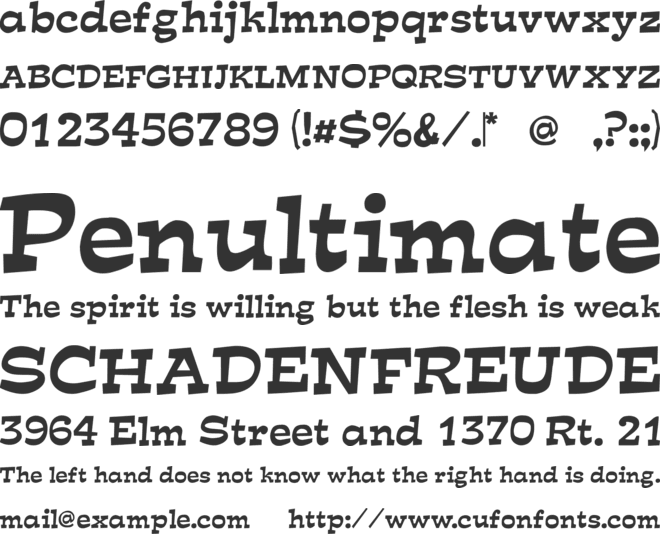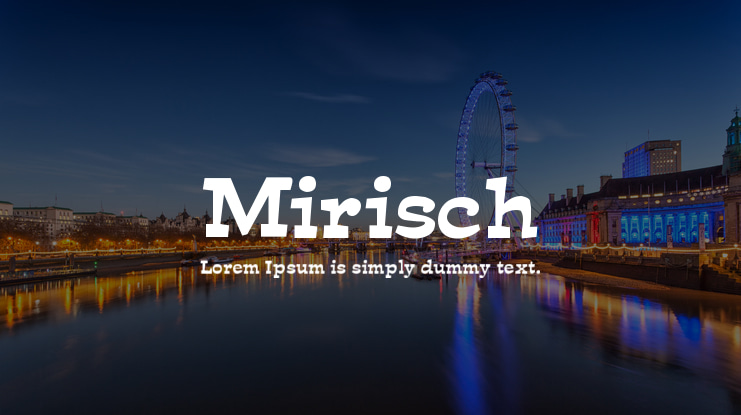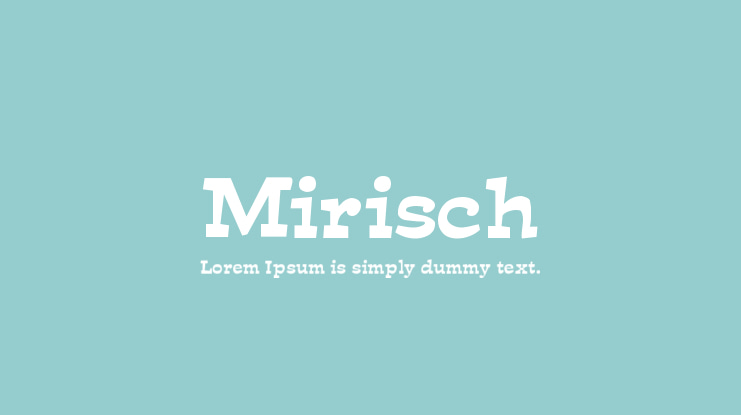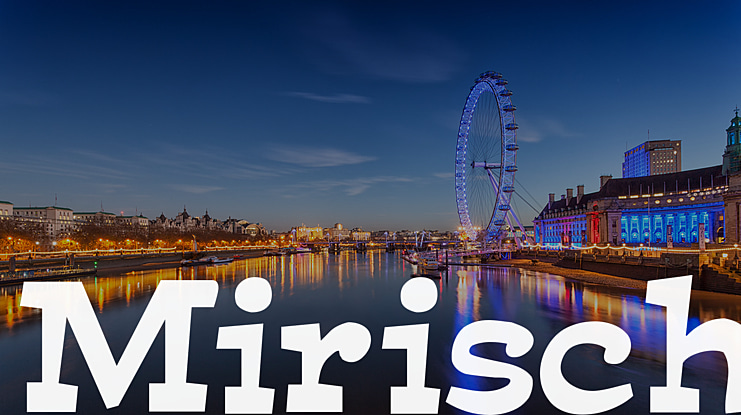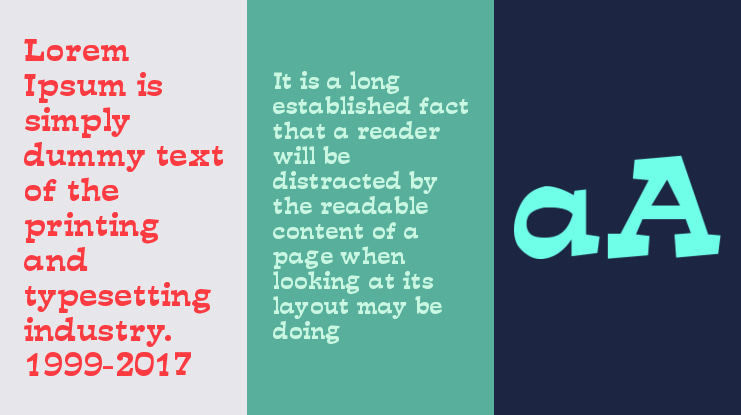
Mirisch Font
Named after the Mirisch Brothers who produced the Pink Panther stuff which is what I was reminded of when I converted this font from a 1920's sample.